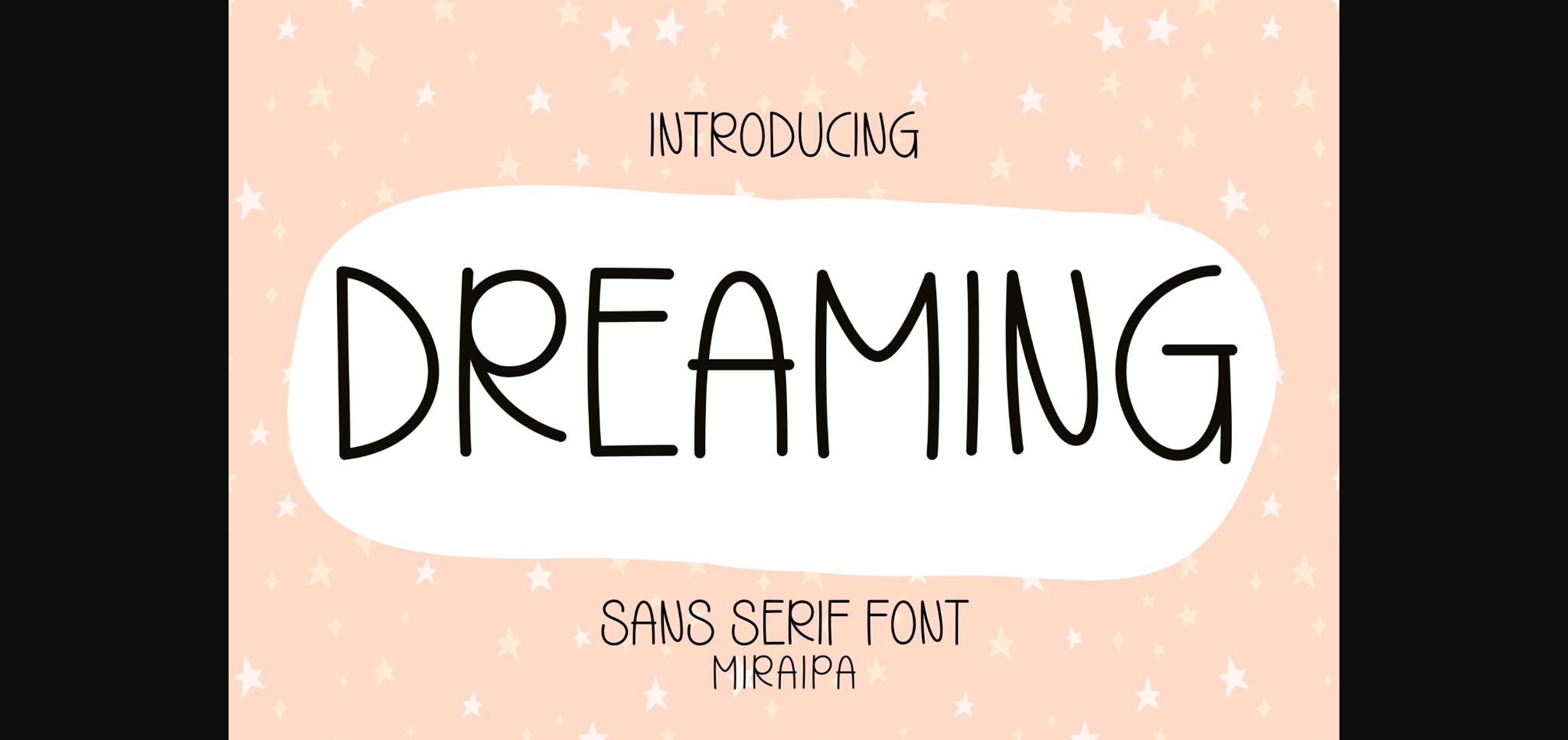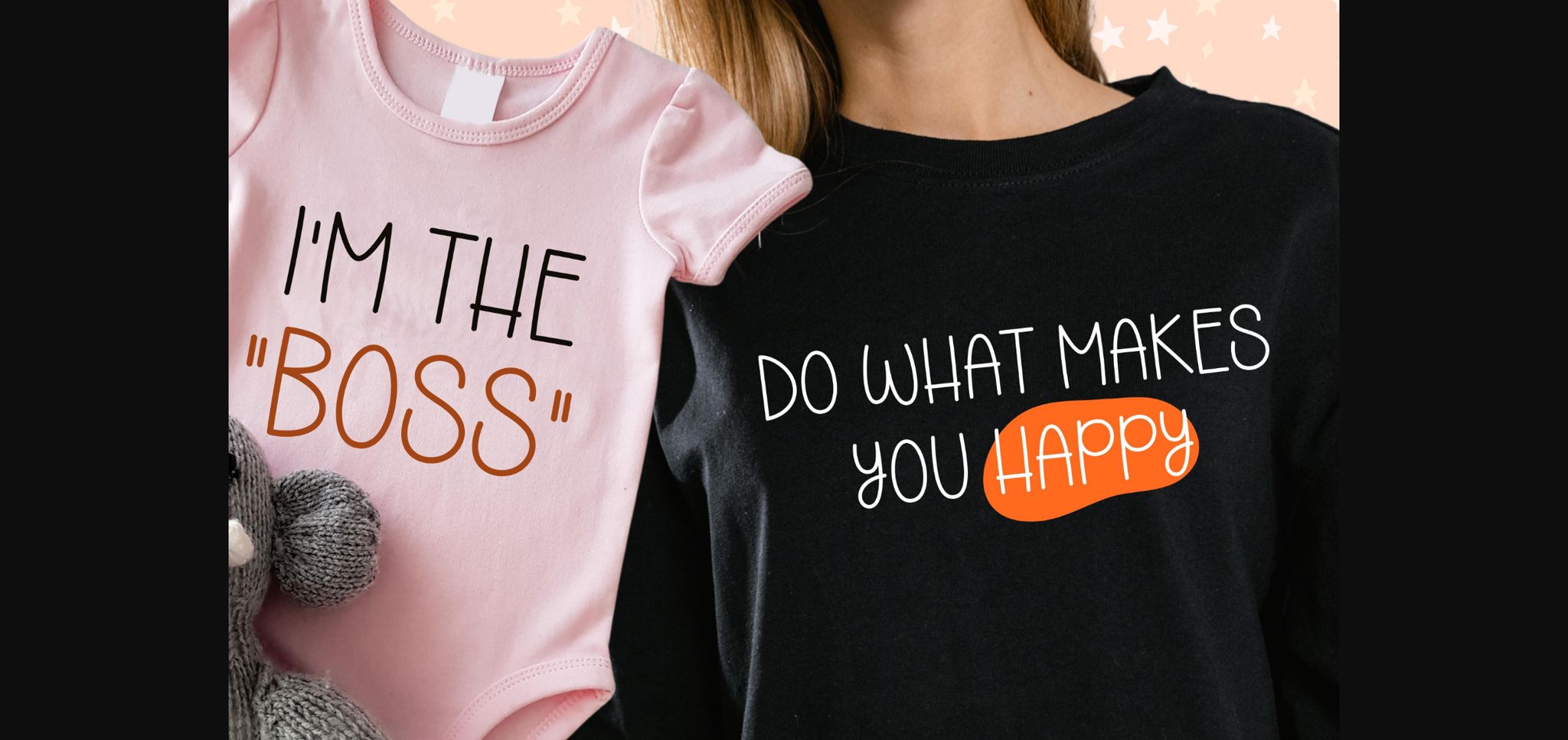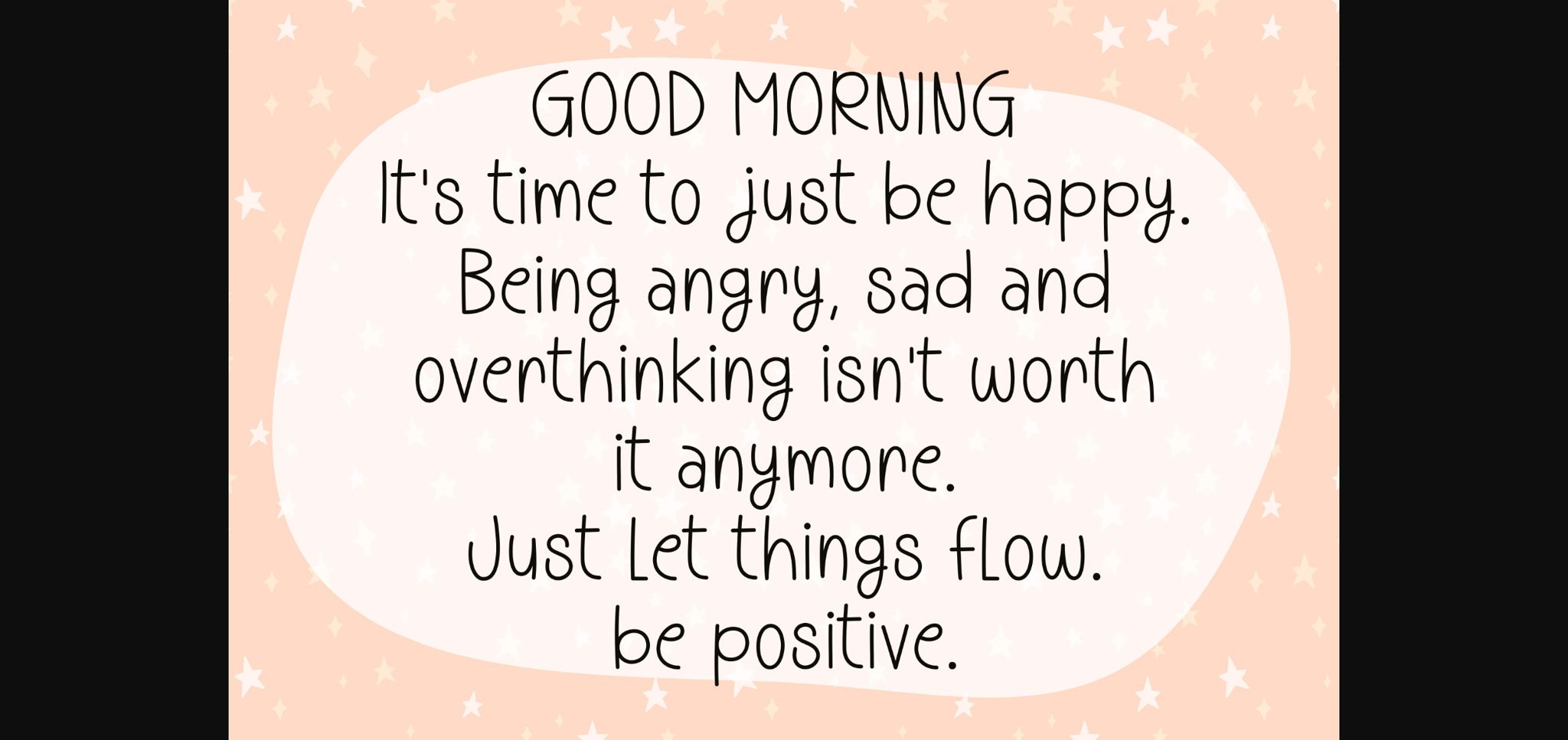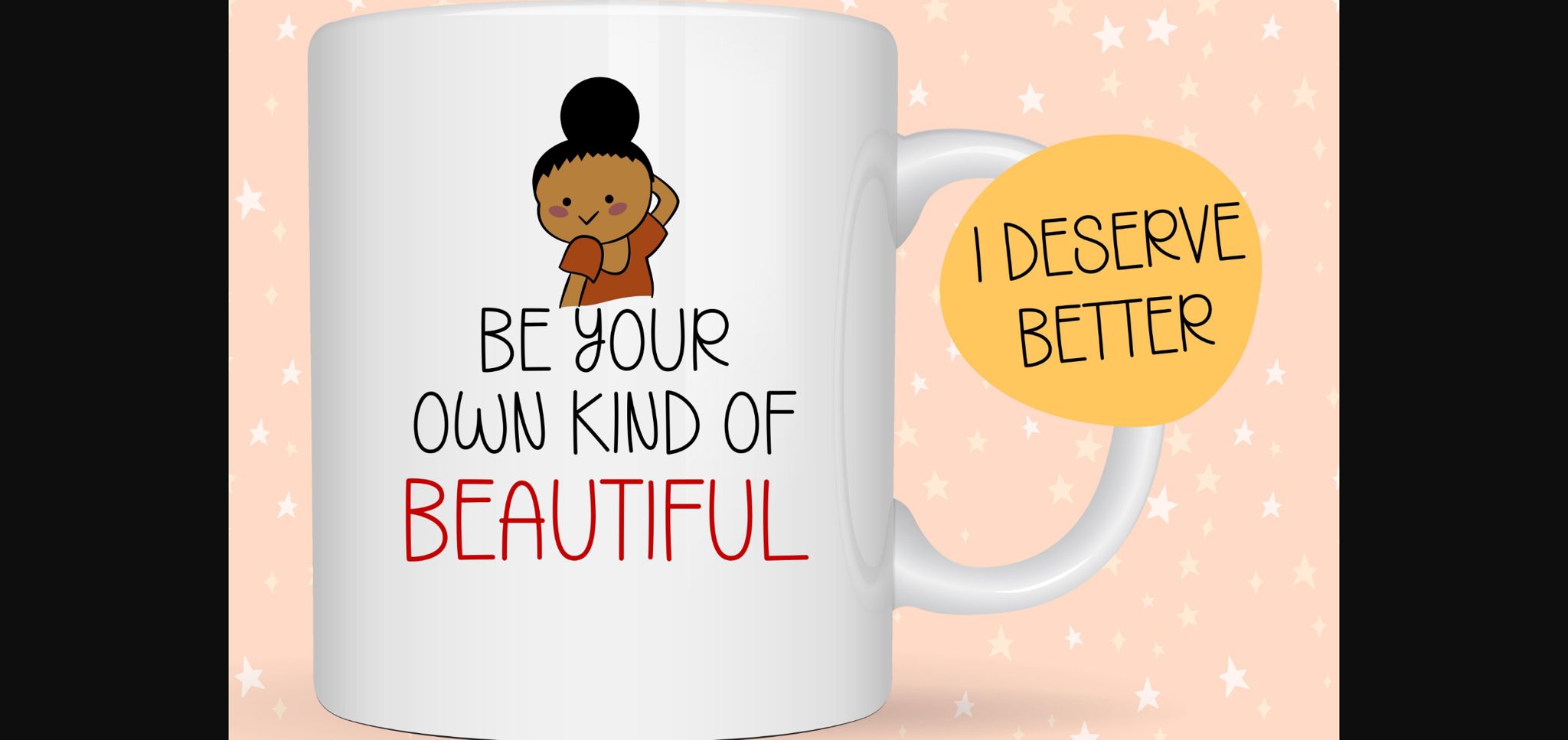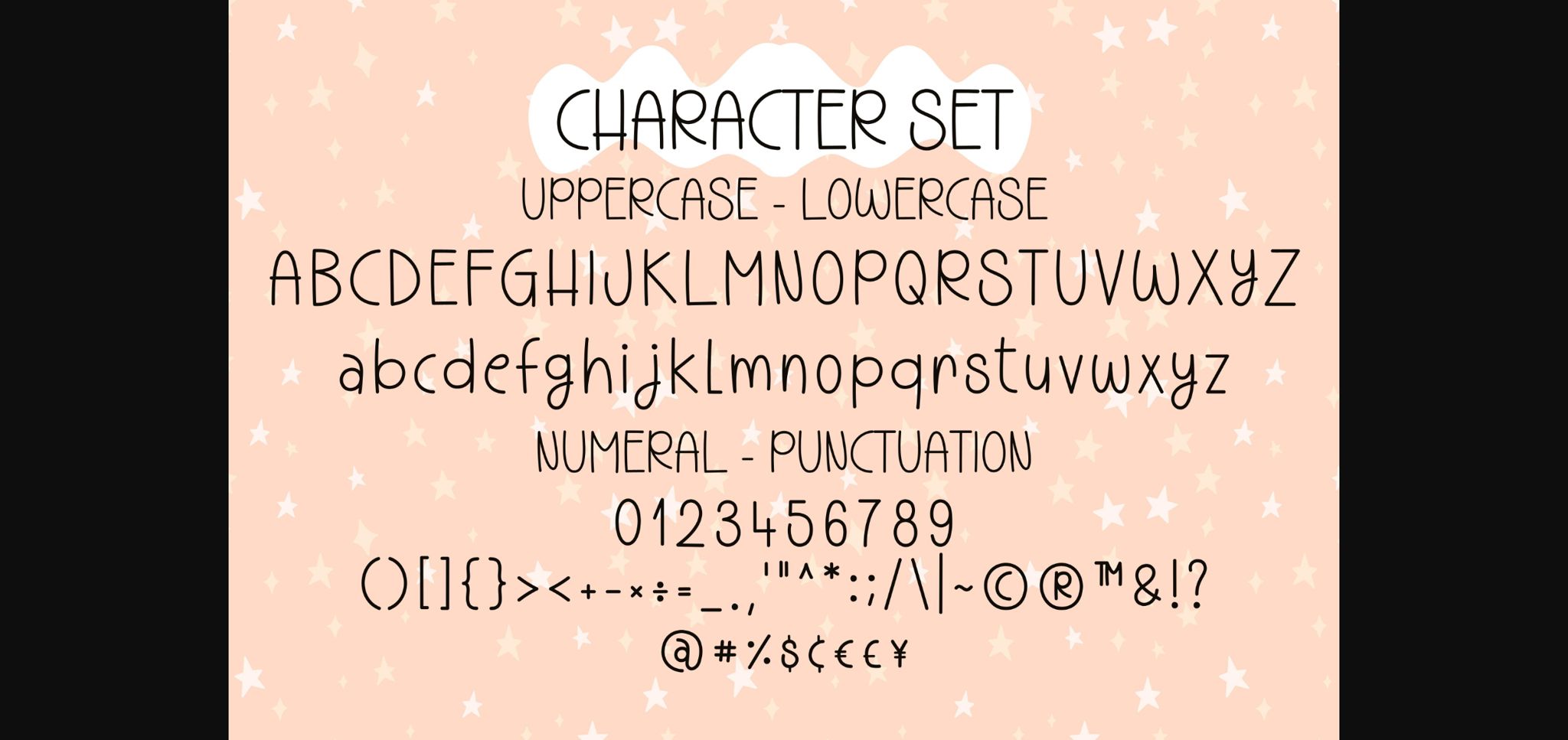
About Dreaming Font
Dreaming is designed in a cute and friendly sans serif font style. It is charming, whimsical, and a bit quirky. It is perfetly suited for a variety of projects suh as posters, blogs, clothing, child-related designs, greeting cards, social media posts or anything that needs a friendly touch. Add it now to your fonts library, and it will bring any of your DIY projects to life.